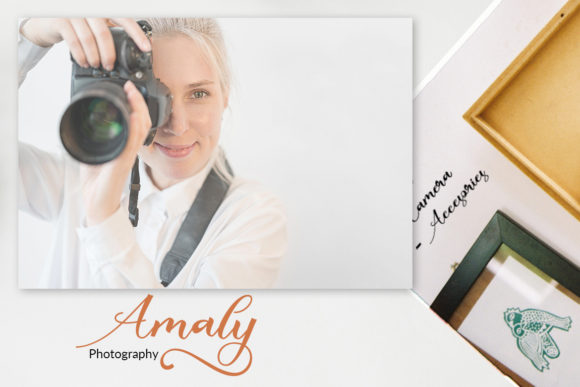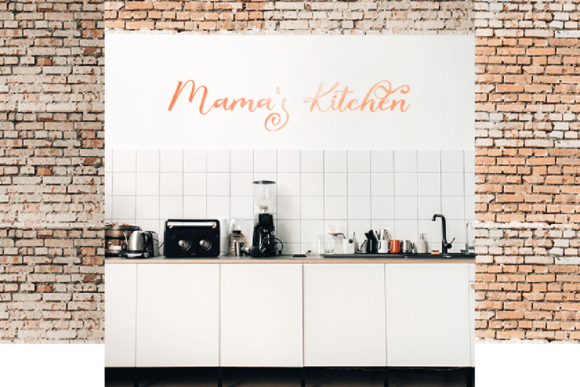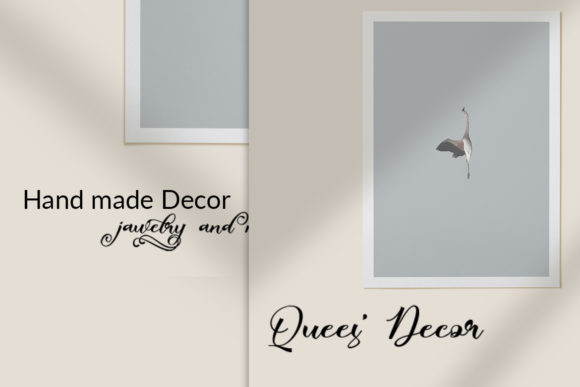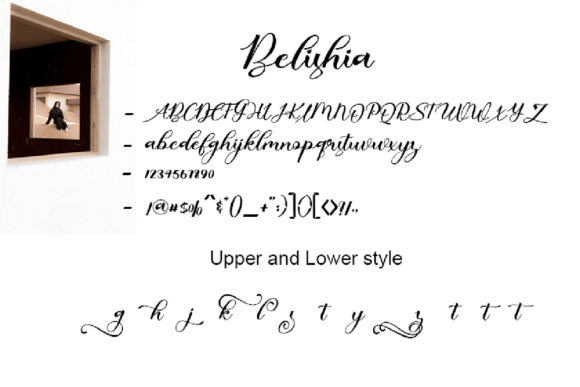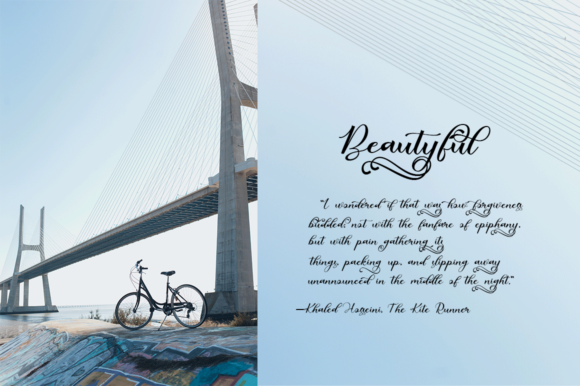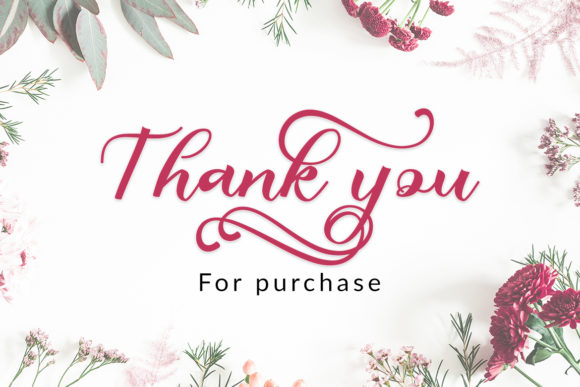
Belishia Font
About Belishia Font
Belishia is a flowing handwritten font. It features amazing swashes, stylistic Sets and stylistic alternates. Fall in love with its authentic feel and use it to create gorgeous wedding invitations, beautiful stationary art, eye-catching social media posts, and cute greeting cards.